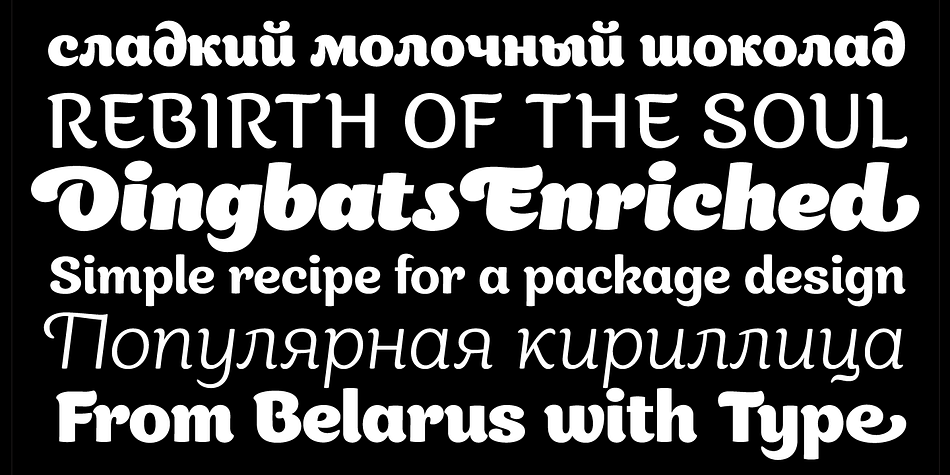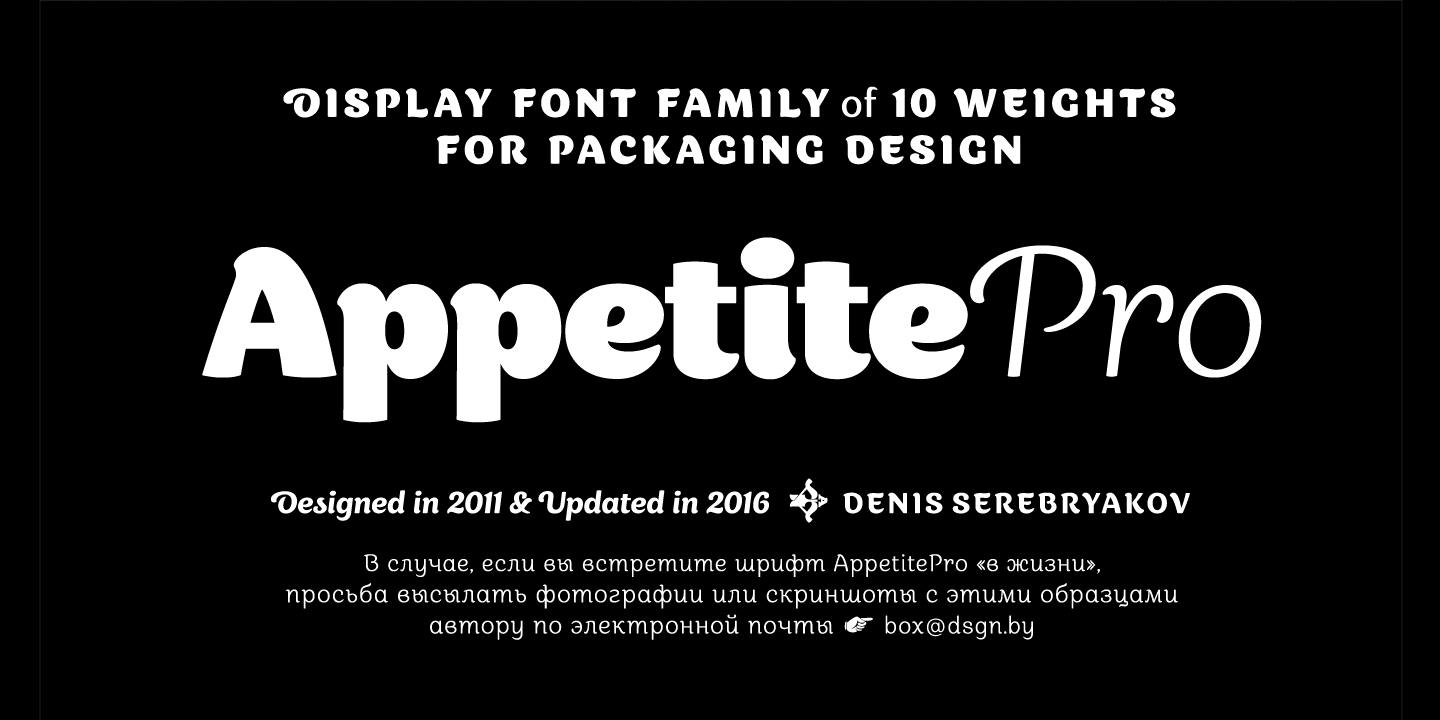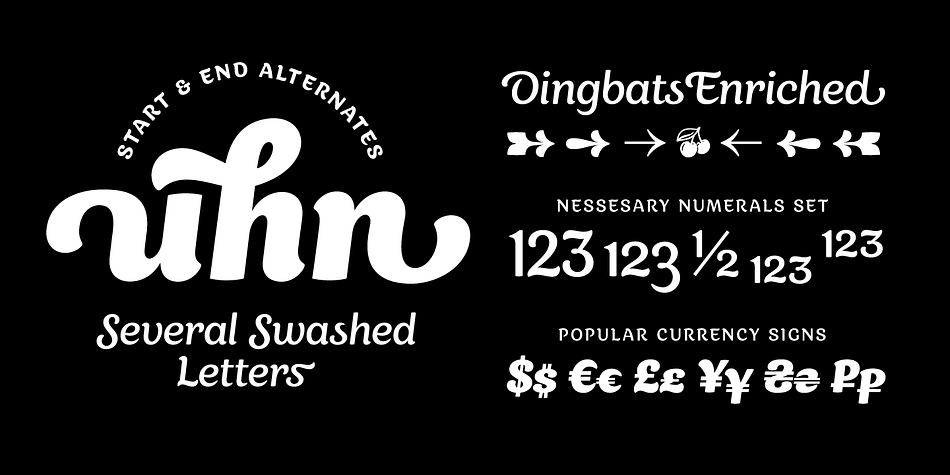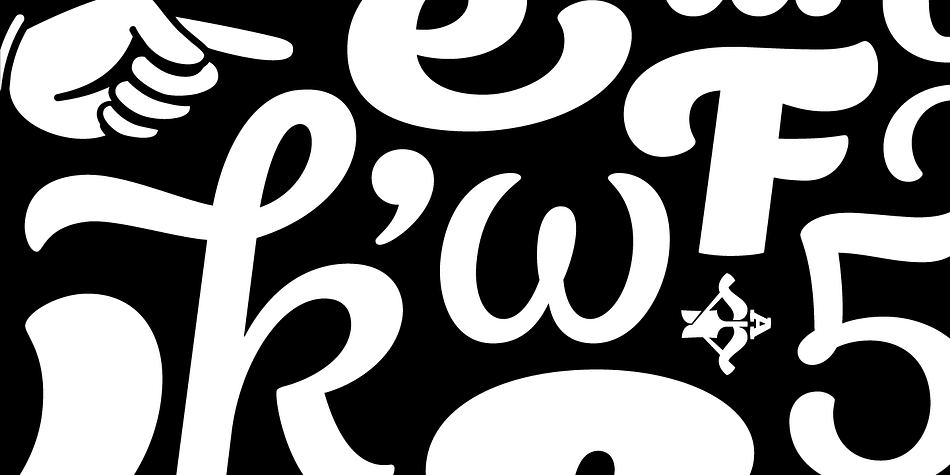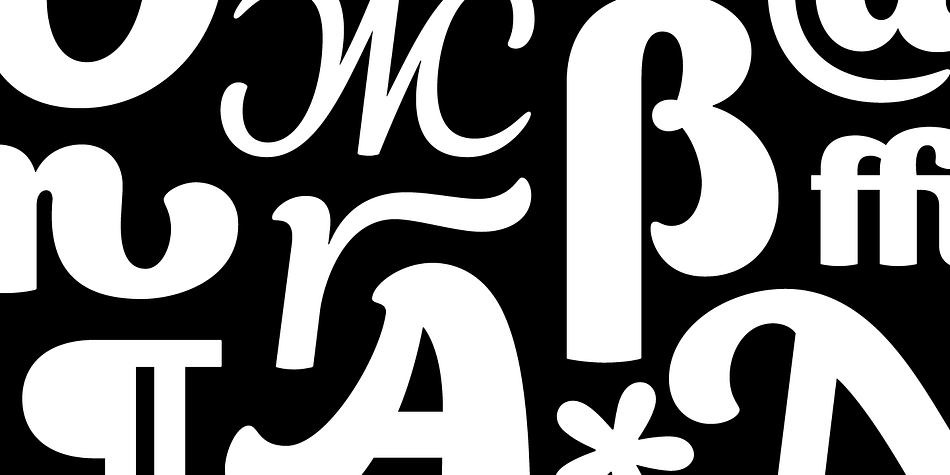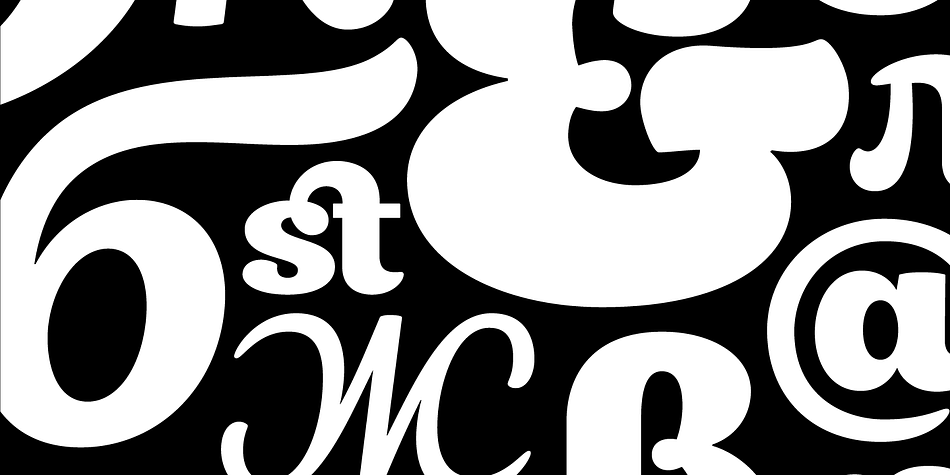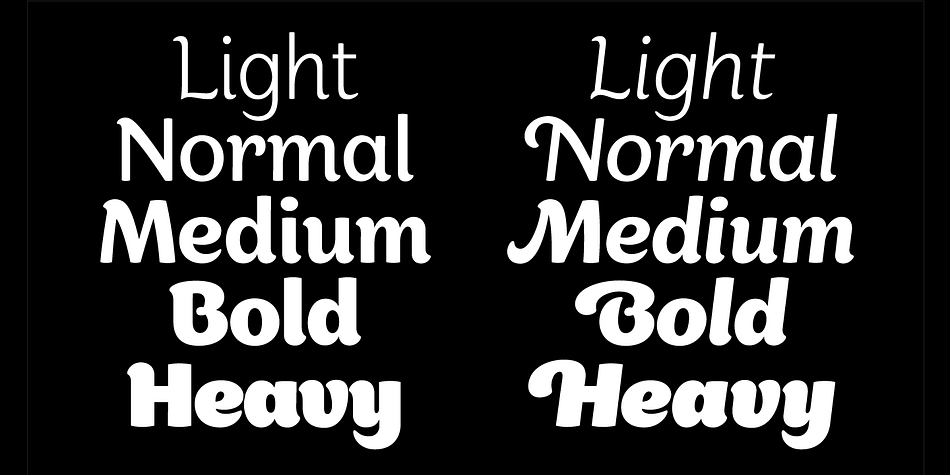
Designed by Denis Serebryakov, Appetite Pro is a brush script and hand drawn font family. This typeface has ten styles and was published by DSGN Fonts.
AppetitePro is a total upgrade of the world wide popular display font Appetite (2011). It is based on original lettering and belongs to the upright script like.
Appetite Pro consists of 10 weights of the refreshed curves — 5 regular and 5 italic — from Light to Heavy. It’s a multilingual and international font, with a full Western Latin, Cyrillic (Russian, Belarusian, Ukrainian) and basic Greek support.
The Appetite Pro font family is specially designed for food identity and packaging design projects. In addition to standard letter cases, Appetite Pro also includes dingbats set. Due to the 10 weights font palette, you can solve a wide variety of professional problems without spending money on extra fonts for titles, subtitles, and main text.